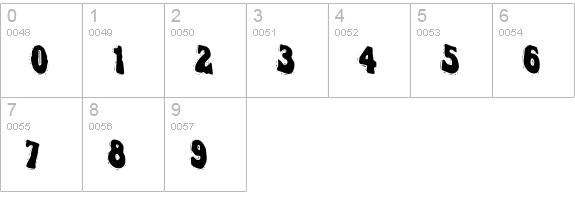
VTC NightOfTheWackedDead Font Details
Introducing VTC NightOfTheWackedDead font, a mesmerizing and captivating typeface that will bring your designs to life and transport your audience to a world of imagination and creativity. This unique font is inspired by the eerie and mysterious atmosphere of a moonlit night, perfectly capturing the essence of the supernatural and the macabre. VTC NightOfTheWackedDead font features intricate and elaborate letterforms, each carefully crafted with attention to detail. Its bold and dramatic presence demands attention, making it ideal for headlines, titles, posters, and any design that requires a touch of otherworldly allure. What sets VTC NightOfTheWackedDead font apart is not only its exceptional design but also its incredible versatility. Whether you're designing for a Halloween-themed event, a horror movie poster, or simply want to add a touch of darkness and mystery to your project, this font will deliver stunning results. What's even more exciting is that VTC NightOfTheWackedDead font is available for free! Yes, you read that right. You can freely download this extraordinary font at FontsMarket.com. Now, unleashing your creativity and adding a touch of the extraordinary to your designs has never been easier or more accessible. So, don't miss out on the opportunity to elevate your designs to new heights with VTC NightOfTheWackedDead font. Download it for free now at FontsMarket.com and let your imagination run wild with the captivating power of this one-of-a-kind typeface.